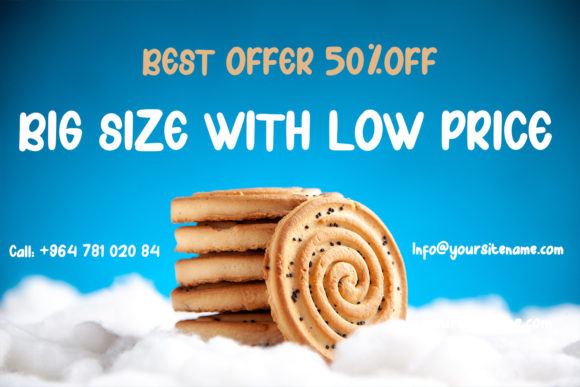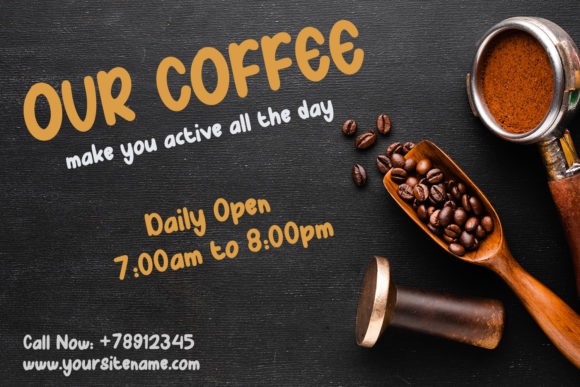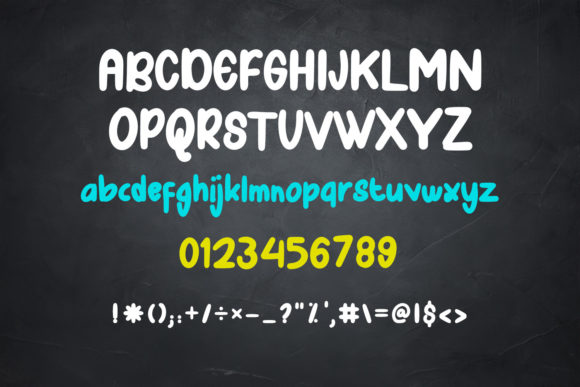
Introduction to Quick Thick Font
Quick Thick is a sweet, chunky lettered, and colorful display font.
This dazzling font will turn any creative idea into a standout Use this font for your designs and explore its endless possibilities.
Key Features of Quick Thick Font
Why Choose Quick Thick Font?
Quick Thick Font offers exceptional quality and versatility, making it a valuable addition to your design toolkit. Whether you’re creating for personal projects or commercial use, Quick Thick Font delivers professional results.